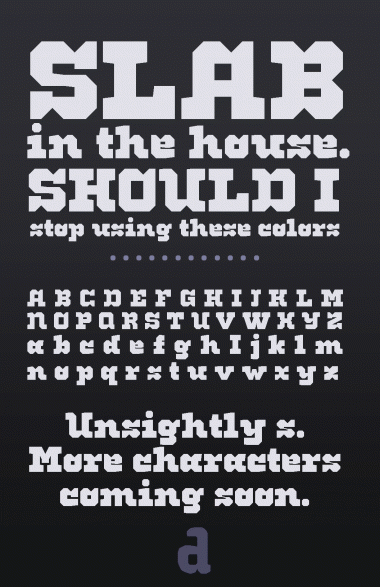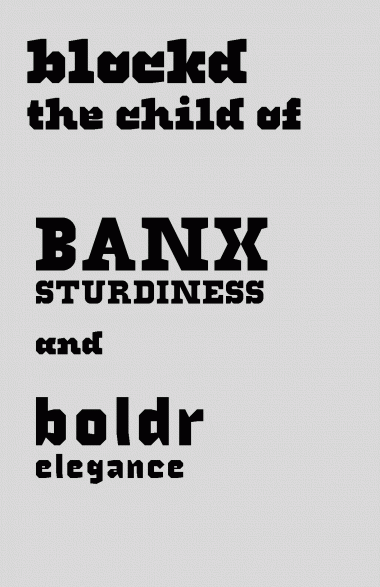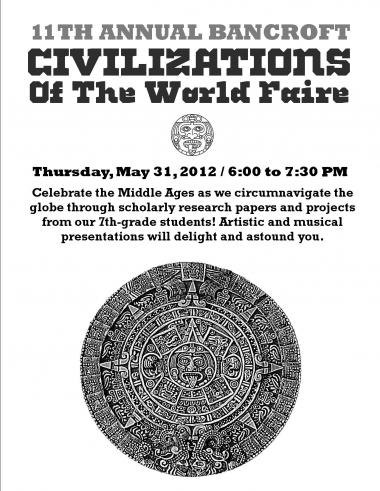
dm Blockd
What I was trying to achieve with dm Banx, dm Boldr, and +stuckingranite.
Beautiful :)
x,z look same though. You could hor-flip s.
@architaraz Thanks! Flipping s may not work though.
Great font. Congratulations.
I like how you take your time and develops a real signature, even in the slab genre which is really not my cup of tea, this sharp irregular stone agy but paradoxically elegant and refined feeling which has become your hallmark makes me like it very much. Congratulations for your evolution. Take the time and the tempo you need, even if not completing most of your works first, at one point, YOU WILL KNOW what it is worth and what is not, it will be still time to come back to them. For almost one year, i only made 26 glyphs fonts and i made many. To build and consolidate my complex signature took much time and experiments. Some go more slow than others, the essential is to not give up.
If haven't been here for several days, because of the school busy-ness (I'm still at school) and this is a veeery nice comeback font :) Love that "s"!
You guys make me smile :)
Architaraz, you like the s? I must've been at that one character for 20 minutes and I still hate it. Thank you though. (Does anyone have suggestions for s?)
If you want a really wonky solution...just remove the spine and have two rotationally symmetric halves :3 It helps to improve legibility at small sizes...
Keep the hairline spine in the s! It's what I love most about this font.
The rest is very good too.
I love the s! I love it so much that I even wanted z to look like s :)
Some suggestions for s:
The controversy is creativity! Stay FontStructing!
Strong work!
Thank you guys so much. Yautja, you're amazing. :)
A simple flyer I am designing for a middle school. I think Rockwell makes a good companion to dm Blockd.
Sorry, the fine details show up better in print and larger.
Congrats! Also, suggestions for x:
An excellent font - they should be very pleased with the flyer. 10/10
New pound sign, at sign. More fun ones like quotes, &, coming tomorrow.
It's coming together!
Robust and beautiful. 10/10
I absolutely love this design. nice fat slab, bravo!
Thanks upixel. Did you see the fonts it evolved from?
Very good funny font!